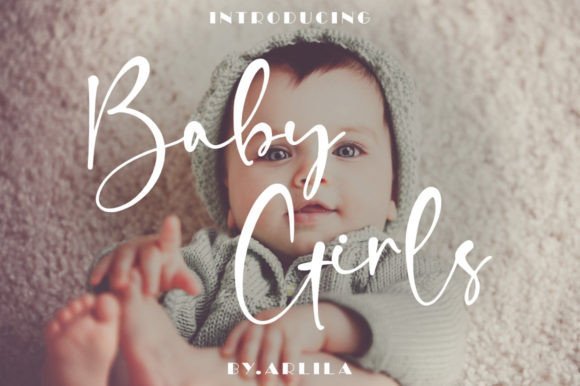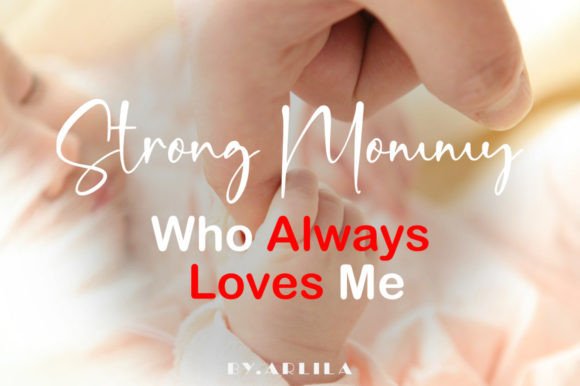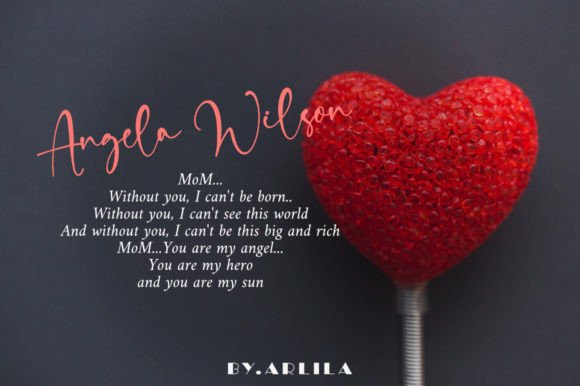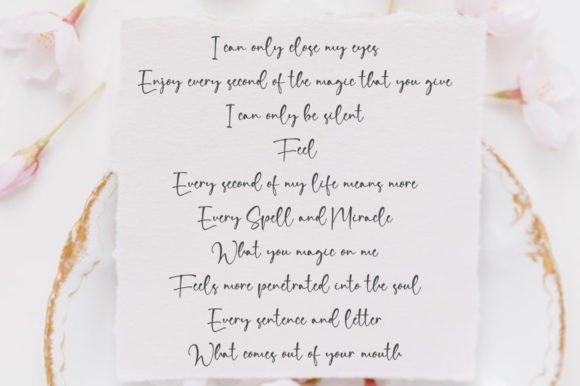
The Magic of Baby Girls Font: Elevate Your Creative Projects
Have you ever stared at a blank canvas, waiting for the perfect font to bring your creative idea to life? I’m sure we all have! Whether you’re a seasoned designer or a DIY enthusiast, finding the right font can make all the difference in the world. It’s like finding that perfect paint color that makes your artwork pop.
Enter Baby Girls Font, a stunning script font that’s as elegant as it is versatile. This magical font is designed to add a touch of whimsy to any project, from Instagram posts to calligraphy scripts. With Baby Girls Font, you’ll be able to transform your ideas into beautiful works of art that will leave a lasting impression. For designers, this font is a valuable asset that can elevate any project and help you stand out from the crowd.
Baby Girls Font Key Features
- Unique Characteristics: Hand-drawn, cursive script with a whimsical and playful feel, ideal for baby-related designs, invitations, and greeting cards
- Font Style: Comes in three font styles: Regular, Italic, and Bold, offering flexibility for different design needs
Baby Girls Font Review
When I first opened the Baby Girls Font, I was immediately struck by its whimsical feel ✨. The cursive script and delicate flourishes give it a charming, old-fashioned charm that’s perfect for projects that need a touch of nostalgia. The font’s subtle femininity is also on point, making it an excellent choice for baby-related designs or products aimed at young girls.
One of the things I love about this font is its versatility ✨. It’s suitable for a wide range of projects, from invitations and announcements to branding and packaging. The font’s legibility is also excellent, making it easy to read even in smaller sizes.
While the Baby Girls Font is a great choice for many projects, there are a few limitations to consider ⚠️:
- Some letters may be difficult to customize or edit, which could be a problem for designers who need to make significant changes to the font.
- The font’s complexity may also make it challenging to pair with other fonts or design elements.
Overall, I’m quite impressed with the Baby Girls Font ✨. While it has some limitations, its unique charm and versatility make it a great addition to any designer’s toolkit. If you’re looking for a font that’s perfect for baby-related designs or products aimed at young girls, this is definitely worth checking out.
Tips for Getting the Most Out of Baby Girls Font
Use Baby Girls Font for designs related to baby girls, such as nursery decor, baby showers, and children’s clothing.
Pair the font with pastel colors and whimsical illustrations for a cohesive and adorable design.
Experiment with different font sizes and styles to add visual interest to your design.
Baby Girls Font is perfect for:
Designing nursery decor, such as wall art and bedding.
Creating invitations and party decor for baby
Alternatives to Baby Girls Font for Designers
Great Vibes is a modern, elegant script font that can be used for a variety of purposes, including invitations, weddings, and fashion branding. It has a similar whimsical feel to Baby Girls Font but with a more sophisticated and refined look.
When to use: Great Vibes is suitable for high-end fashion, weddings, and luxury branding where a touch of elegance is required.
Comparison: While Baby Girls Font is more playful and cursive, Great Vibes has a more fluid and connected feel, making it ideal for longer text.
Carolyna Pro is a luxurious script font that features a mix of modern and classic elements. It’s perfect for creating high-end branding, packaging, and invitations that require a touch of sophistication and glamour.